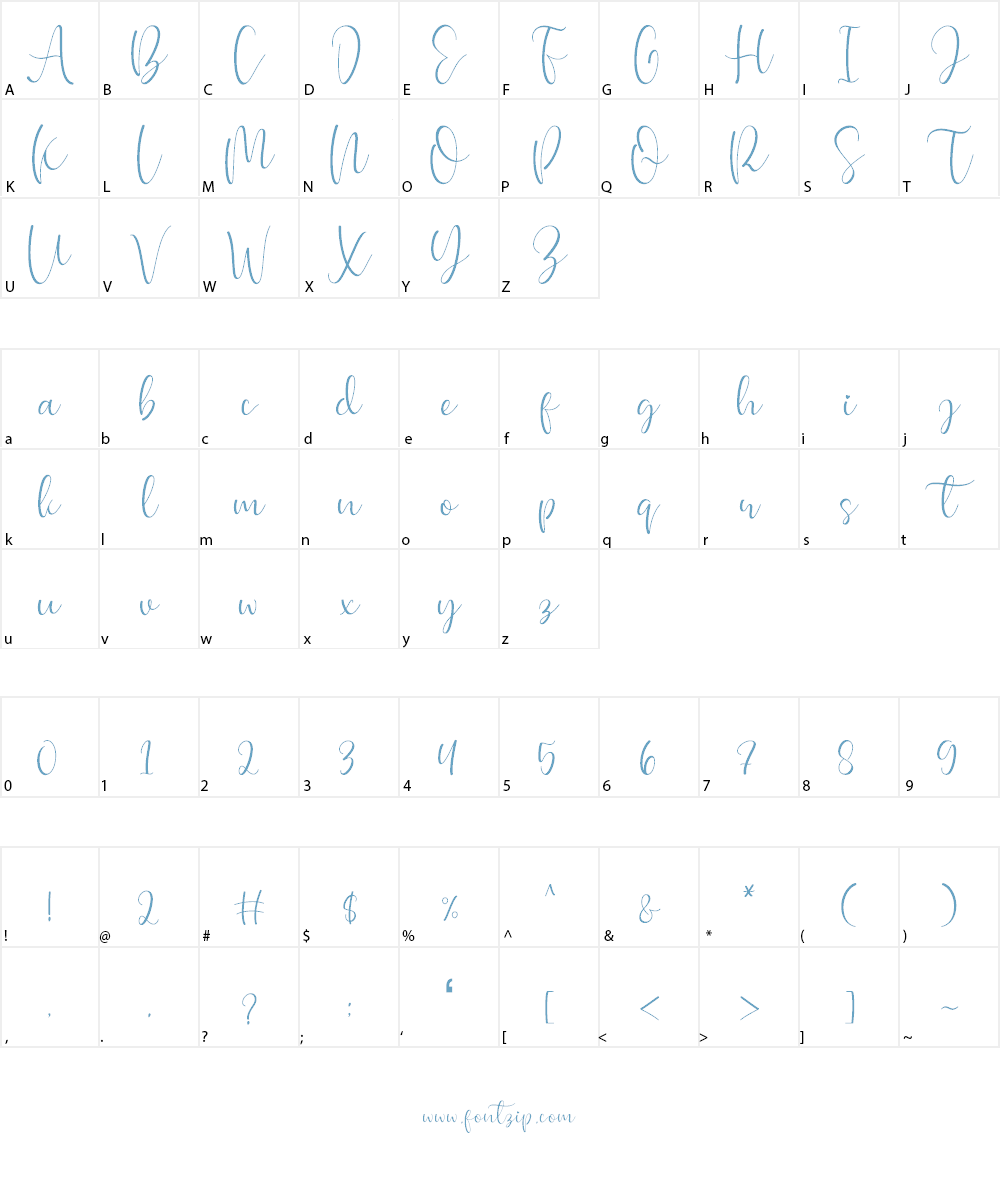
Chiesty is a sweet script font that You can implement chiesty font to your various design like Wedding Invitation, quotes, ID card, boutique logo, branding, hang tag, sosial media, print, poster and many more.